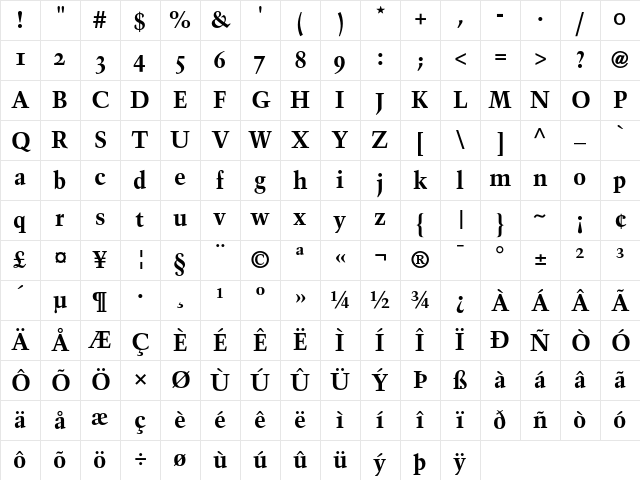
Trump Mediaeval Bold Old Style Figures
Style: Bold Old Style Figures
Design Context for Trump Mediaeval
Trump Mediaeval is a composed and adaptable typeface that performs quietly and consistently across a wide range of design contexts. Its bold stroke weight gives it real presence on the page.